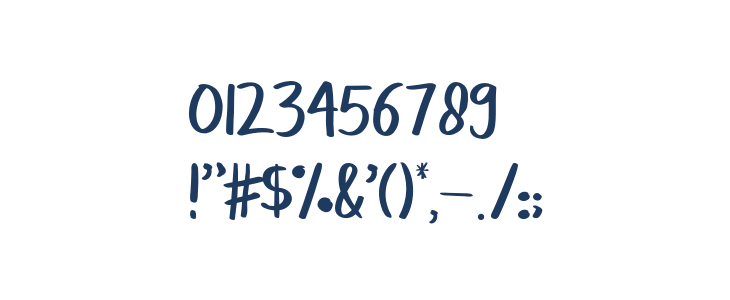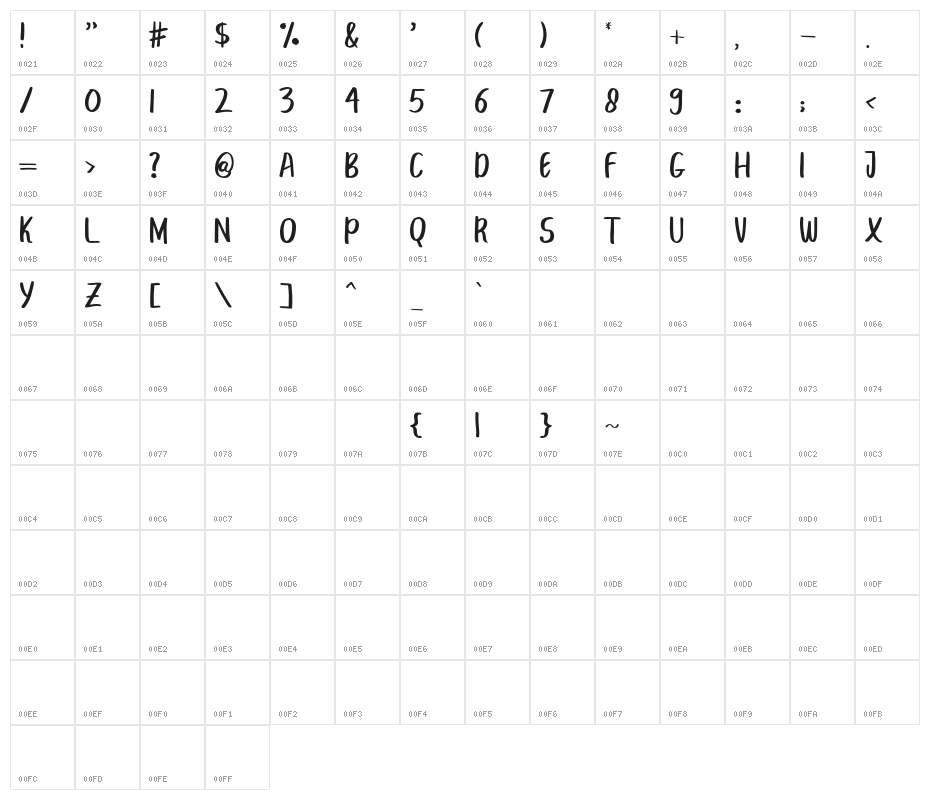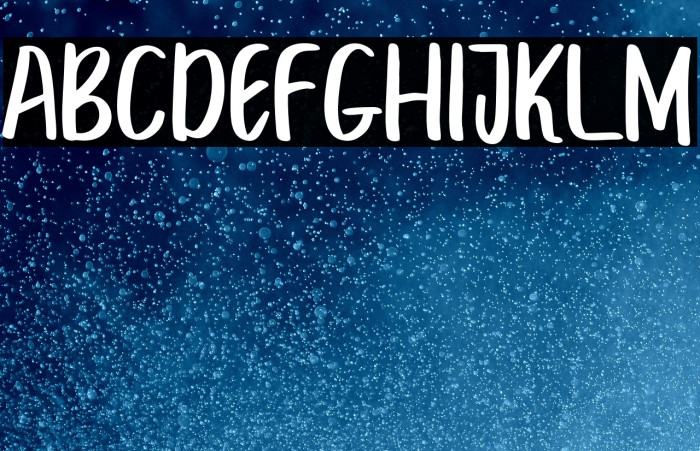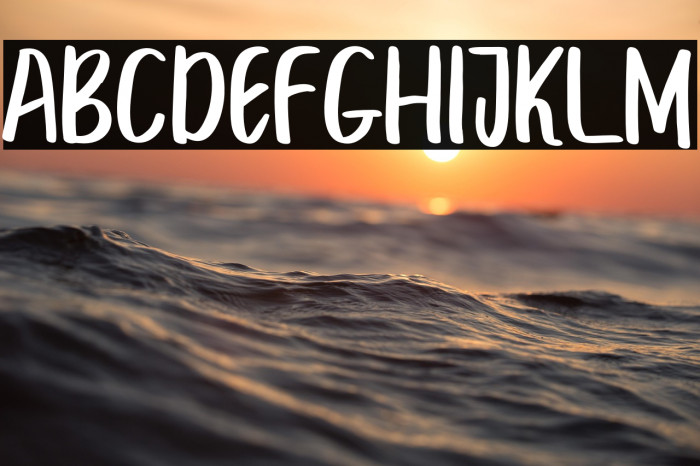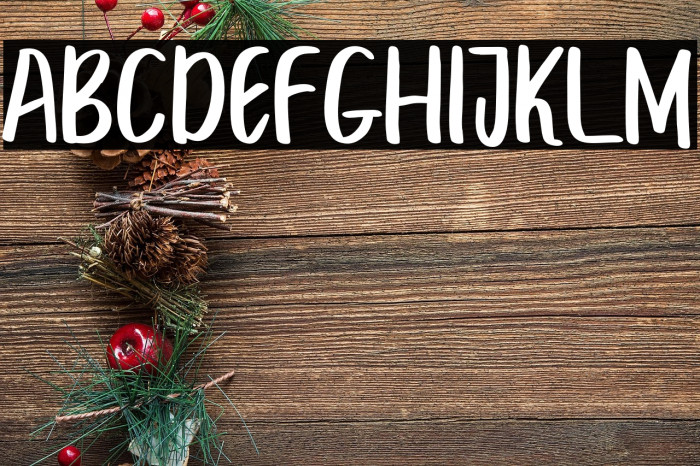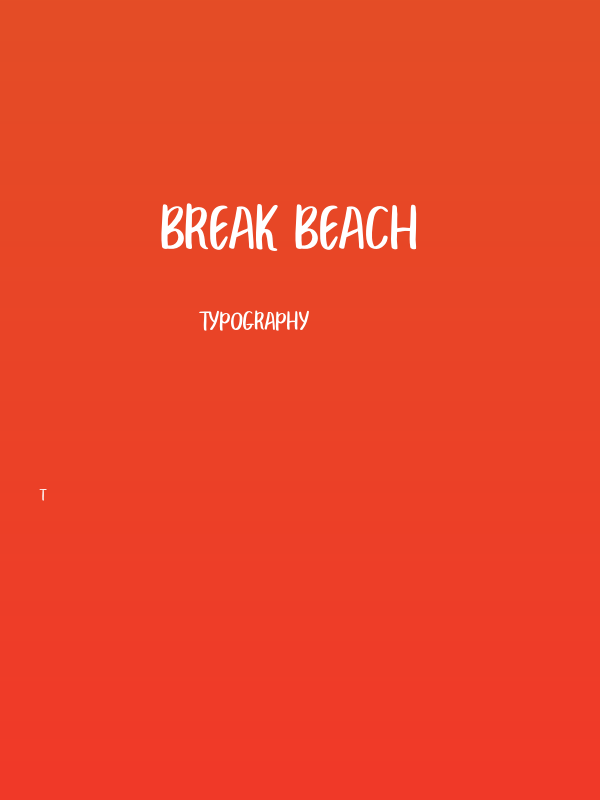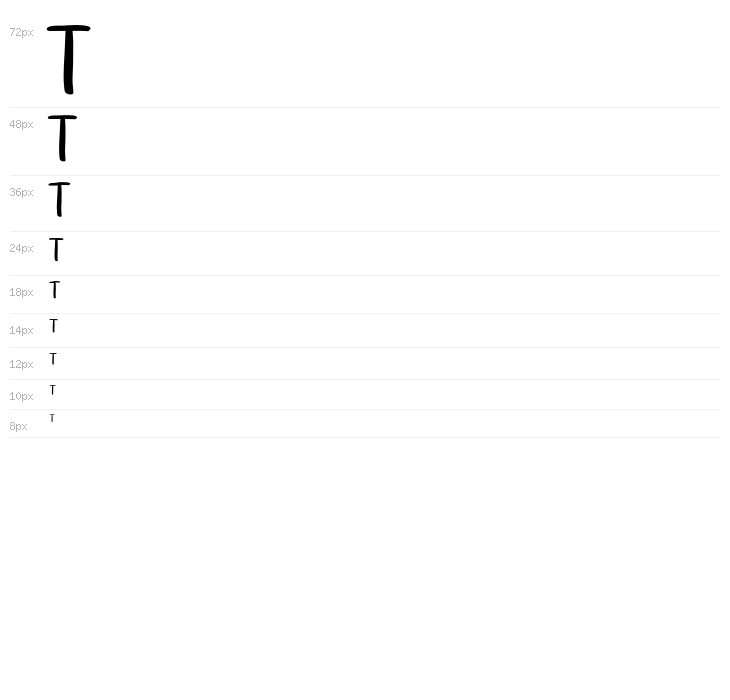
BREAK BEACH Font
BREAK BEACH Description
This font features a playful and energetic style, characterized by its bold, hand-drawn appearance. The letters are slightly irregular, giving it a casual and friendly vibe. The strokes are thick and consistent, with rounded edges that add to its approachable feel. It includes both uppercase and lowercase letters, numbers, and a variety of special characters, making it versatile for different uses. The overall look is reminiscent of handwritten text, perfect for projects that require a personal touch.
| Proposed Projects | Ideal for greeting cards, children's books, playful branding, and social media graphics. |